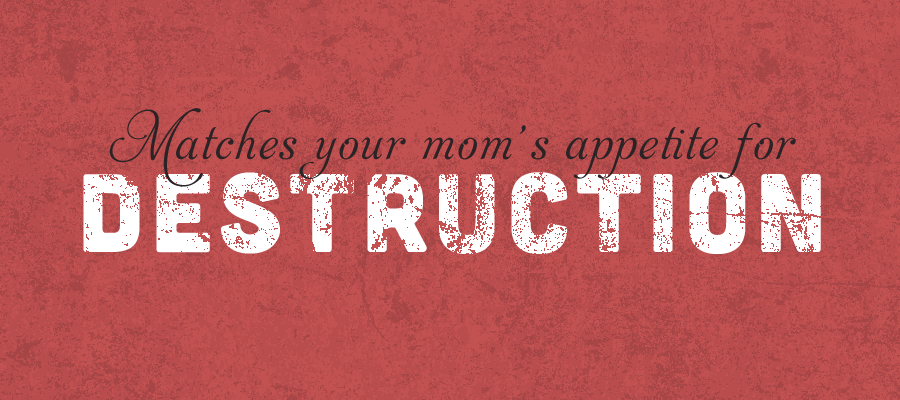
Cubano
A CONFIDENT, YET FRIENDLY DISPLAY SANS SERIF.
Cubano's personality is defined by its rounded corners, wide strokes, and semi-condensed letterforms. Featuring 167 glyphs, Cubano is available in all caps with numerals, punctuation, symbols and most accent marks. And with webfonts included, you can easily solidify your next site with Cubano!